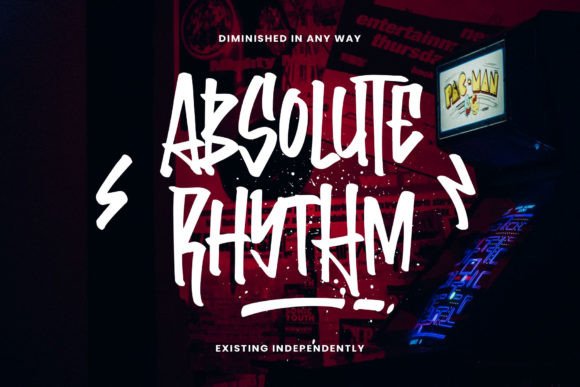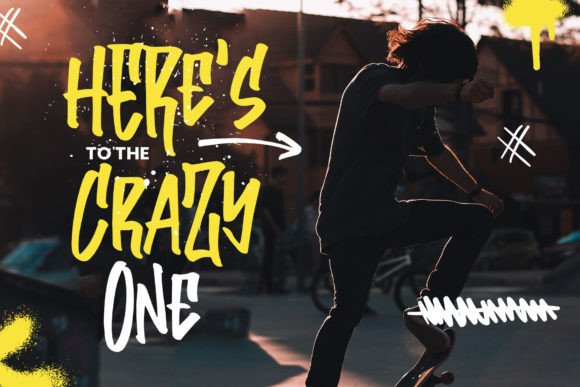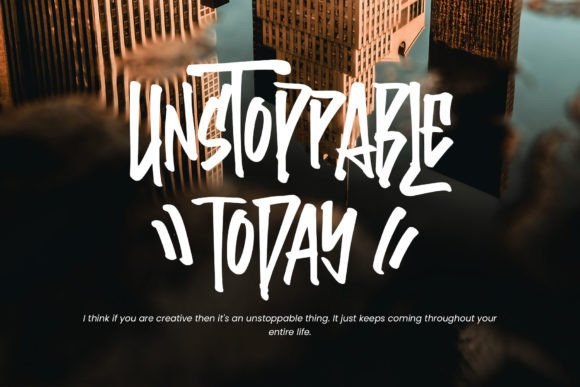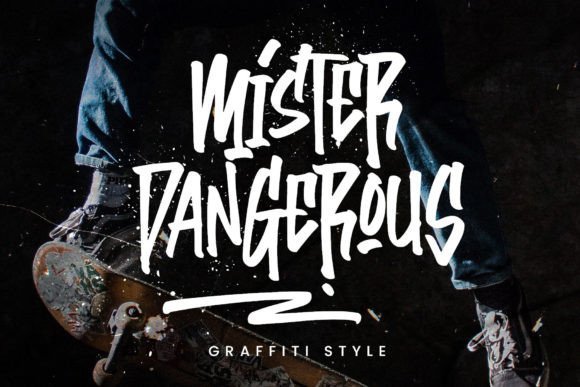
Introduction to Mister Dangerous Font
Introducing Mister Dangerous, inspired by the graffiti tags found in urban street art.
Designed with dynamic freestyle flair, it brings the spirit of graffiti to your creative ideas This font is the perfect choice to add an urban touch to your designs, including films, posters, stickers, labels, flyers, apparel, packaging, and more.
Key Features of Mister Dangerous Font